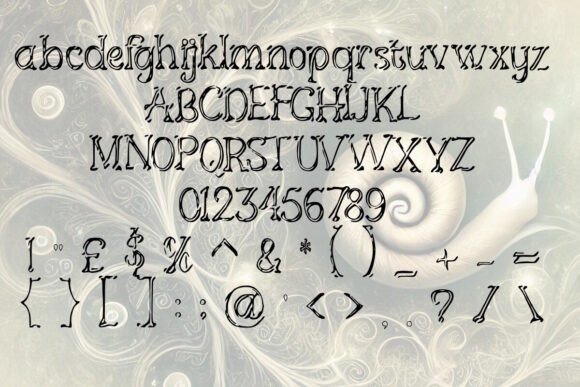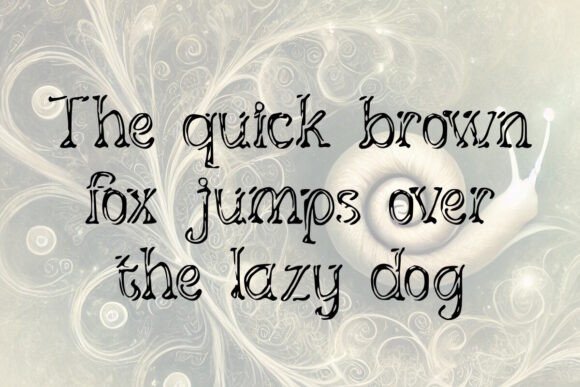
Introduction to Snail Trail Font
Add a little twist and twirl to your designs with Snail Trail.
This font mimics the curly, looping patterns left behind by a snail, creating an intricate, textured look thatโs both playful and elegant Whether youโre creating a fairy tale, fantasy branding, or a dreamy vintage design, Snail Trail will bring a touch of slow-moving magic to your work.
Key Features of Snail Trail Font
Why Choose Snail Trail Font?
Snail Trail Font offers exceptional quality and versatility, making it a valuable addition to your design toolkit. Whether you’re creating for personal projects or commercial use, Snail Trail Font delivers professional results.